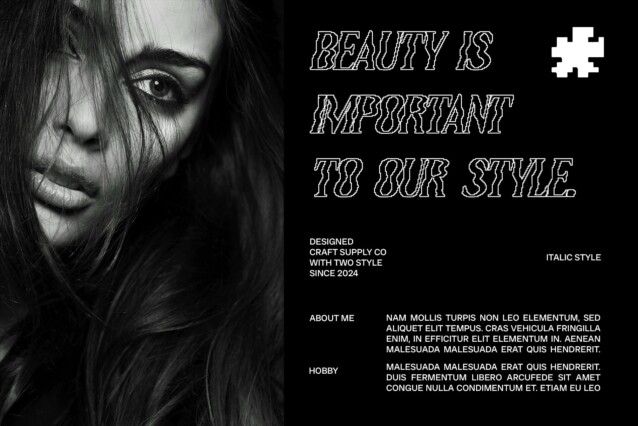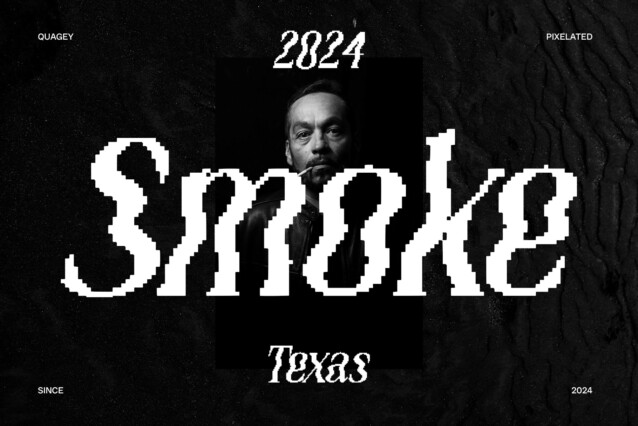
Quagey Pixel Font
Quagey Pixel Font is a pixelated serif font with a psychedelic and funky style, creating a dynamic, bold, and captivating look. Its unique design makes it ideal for projects that aim to stand out and be full of creativity.
Versatile and Artistic
With its versatile design, Quagey Pixel is suitable for a variety of uses, including posters, album covers, and branding. Its psychedelic flair adds an artistic and daring touch, ensuring your designs are memorable and eye-catching.